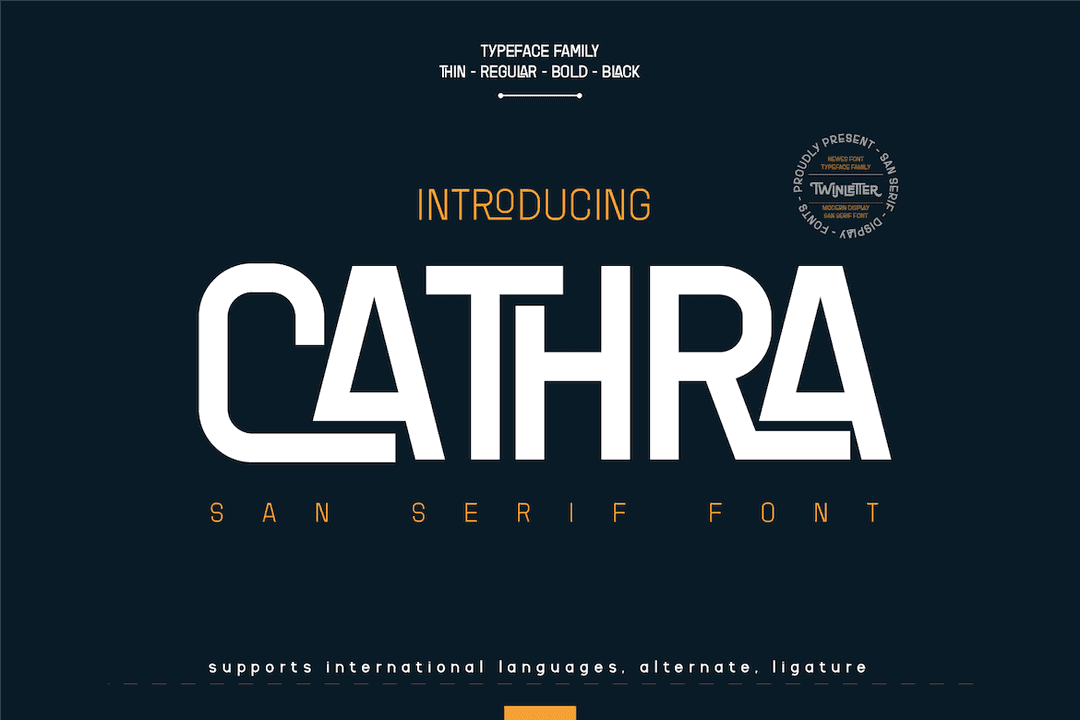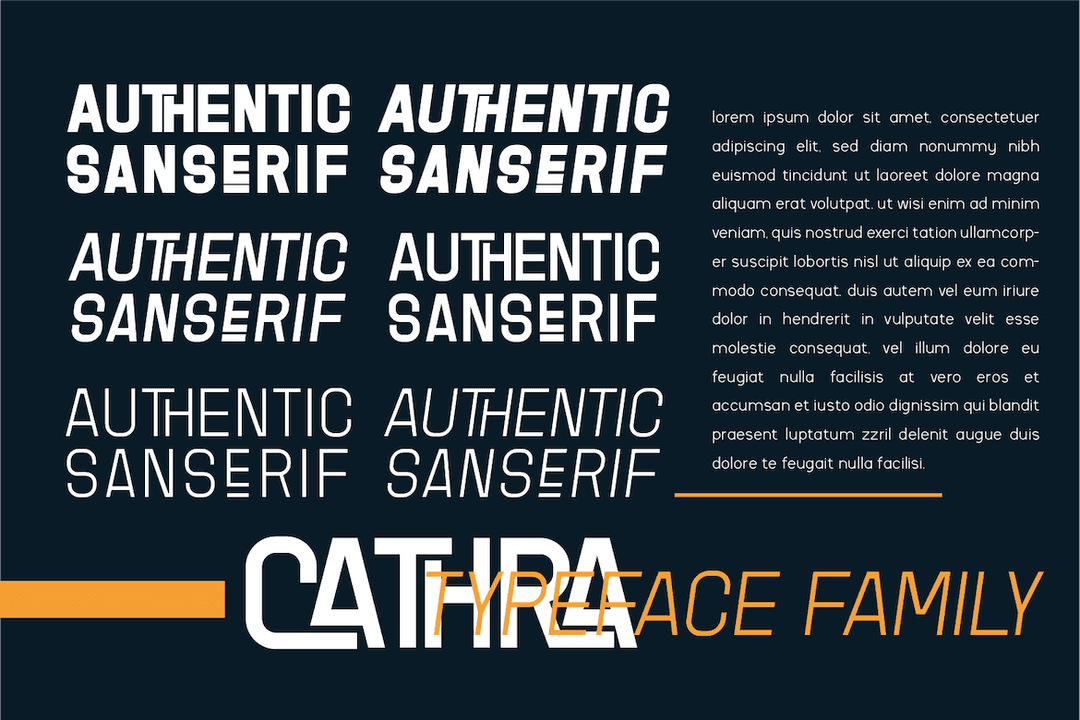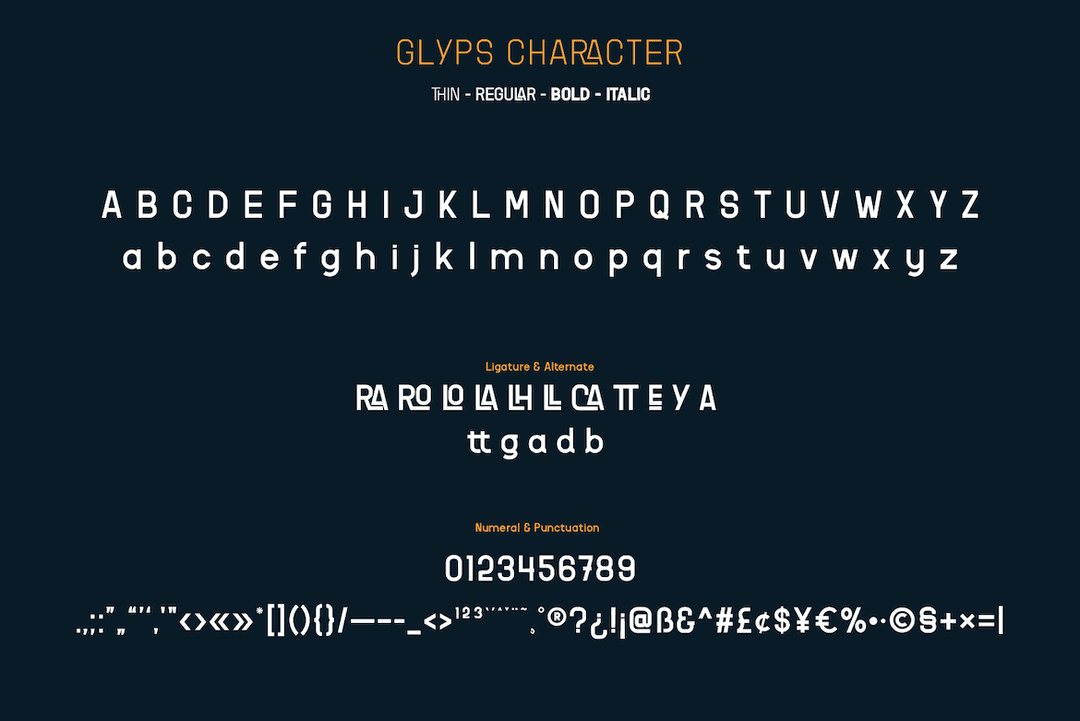
Cathra is an elegant modern sans-serif font designed with care to make your designs truly stand out. This font will look wonderful across different designs. This font can be used for numerous design-related projects such as sports events, branding initiatives, posters and banners promoting movie titles; menus promoting drinks technology products; clothing logotypes as well as quotes pertaining to clothing logotypes – the list is endless!